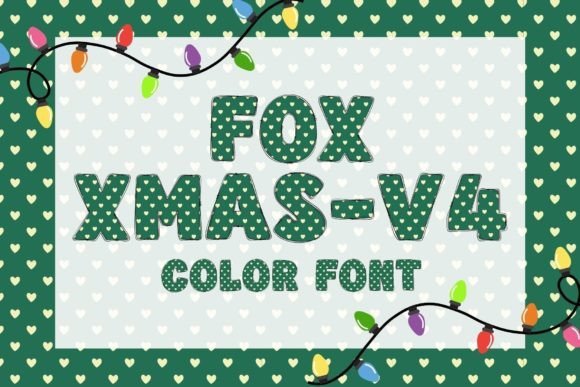
The Magic of Holiday Design: Introducing Fox Xmas-v4 Font
Imagine you’re sitting at your desk, surrounded by twinkling lights and festive decorations, trying to come up with the perfect holiday design. You’ve got a brilliant idea, but something’s missing – a font that captures the whimsy and wonder of the season. That’s where the Fox Xmas-v4 Font comes in – a cool, fun color font that’s sure to make your designs stand out.
With the Fox Xmas-v4 Font, you can create gorgeous invitations, beautiful stationery art, eye-catching social media posts, and cute greeting cards that will make your friends and family feel special. As a designer, you know the value of having the right tools at your disposal, and this font is a game-changer. Whether you’re working on a personal project or a client’s holiday campaign, the Fox Xmas-v4 Font is sure to bring a touch of magic to your designs.
Key Features of Fox Xmas-v4 Font
- Font Family: Fox Xmas-v4
- Character Set: Latin (Western), Cyrillic, Greek
- Unique Characteristic: This font features a festive and playful design, perfect for holiday-themed projects.
Designer Review: Fox Xmas-v4 Font
Overall, I’d say the Fox Xmas-v4 Font has some great qualities, but also some areas that need improvement. ✨
- The font has a unique and festive feel to it, perfect for holiday-themed projects.
- The weight and spacing of the characters are well-balanced, making it easy to read.
- The font is highly customizable, allowing for a range of colors and effects.
- The font may not be suitable for large blocks of text, as it can become overwhelming.
- The characters can be difficult to read in certain fonts sizes, particularly at small sizes.
Overall, I think the Fox Xmas-v4 Font is a great addition to any holiday-themed project. While it has some limitations, it’s a fun and festive font that can add a lot of personality to your designs. With some careful use and customization, I think it can be a real showstopper.
Tips for Getting the Most Out of Fox Xmas-v4 Font
Use Fox Xmas-v4 Font to add a festive touch to your holiday designs. This font is perfect for creating Christmas cards, invitations, and social media graphics.
Some common use cases for Fox Xmas-v4 Font include:
- Christmas card designs
- Holiday invitations
- Social media graphics
- Advertising materials
Alternative Fonts to Fox Xmas-v4 Font
Copperplate is a classic calligraphy font that adds elegance and sophistication to any design. It’s ideal for use in wedding invitations, holiday cards, and other formal documents. Copperplate is more refined and polished compared to Fox Xmas-v4 Font, which is more playful and festive.
Carolyna Pro is a modern script font that features a unique blend of elegance and whimsy. It’s perfect for use in holiday greeting cards, party invitations, and other festive designs. Compared to Fox Xmas-v4 Font, Carolyna Pro is more versatile and can be used for a wider range of design applications.
Great Vibes is a beautiful, handwritten font that adds a touch of warmth and personality to any design. It’s ideal for use in social media graphics, blog posts, and other casual content. Great Vibes is more relaxed and casual compared to Fox Xmas-v4 Font, which is more formal and traditional.
Playfair Display is a luxurious, elegant font that features intricate details and ornate flourishes. It’s perfect for use in high-end branding, luxury packaging, and other premium design applications. Compared to Fox Xmas-v4 Font, Playfair Display is more sophisticated and refined, but can be more difficult to read in smaller sizes.
Design Projects Using Fox Xmas-v4 Font
Create a magical winter wonderland invitation for your friends and family with Fox Xmas-v4 Font.
- How to use Fox Xmas-v4 Font: Use the font to write the invitation’s main text, such as “You’re Invited to a Winter Wonderland” or “Merry Christmas” in bold and festive letters.